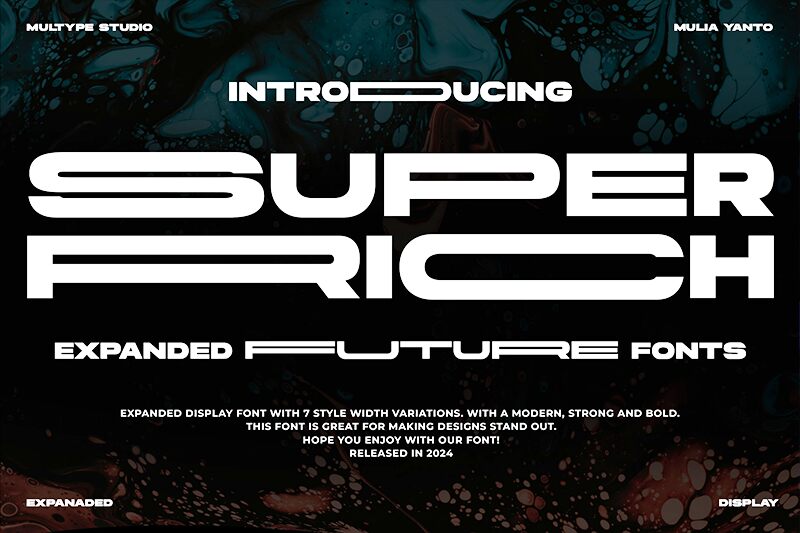
Super Rich Expanded Stretch font by Multype Studio brings a unique modern aesthetic and geometric influence to your projects. This sans serif font is monospaced with a solid presence that helps to fully advance the uniqueness of its big and bold appearances. It’s a combination of clean modernity, strong impact, and optimal readability.
The free font lends itself perfectly across various applications including magazine or newspaper headlines, fashion design, motivational quotes, posters or flyer designs, branding designs like logos, food packaging designs, book covers, corporate websites as well as apps.